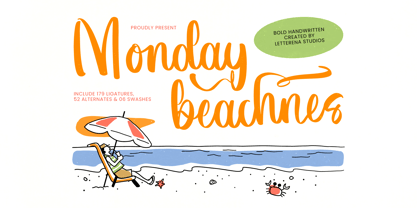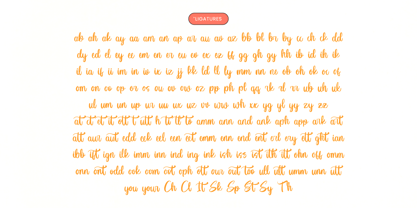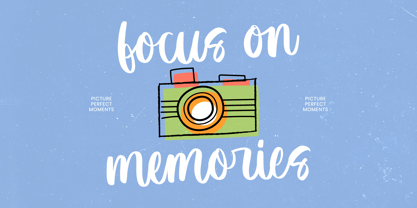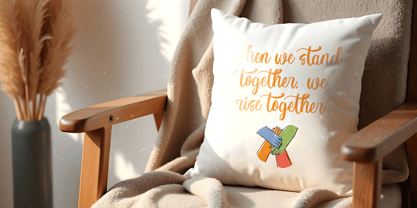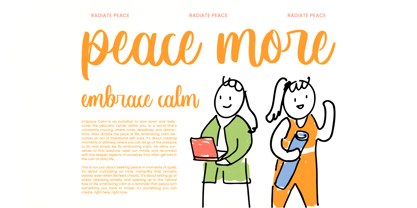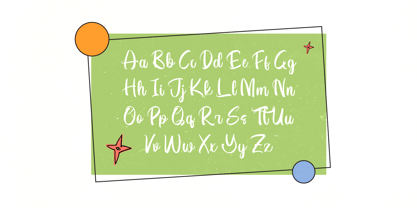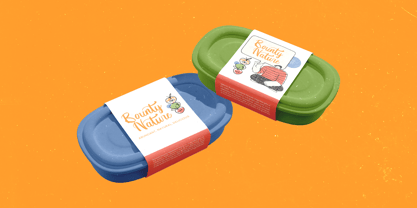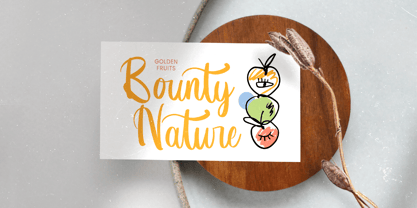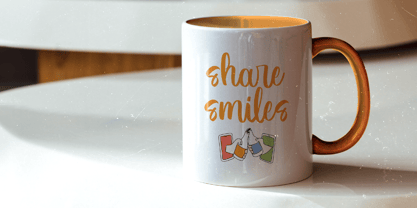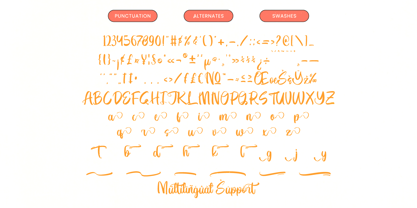
Monday Beachnes
von Letterena Studios
Die Schriftfamilie Monday Beachnes wurde von Heru Utama Putra entworfen und von Letterena Studios veröffentlicht. Monday Beachnes enthält 2 Stile und Familienpaketoptionen. Mehr über diese Familie
Monday Beachnes is a bold handwritten script inspired by carefree seaside moments, bringing a warm, playful, and breezy personality to your designs. Its smooth strokes, natural movement, and sun-kissed charm make it perfect for beach-themed branding, lifestyle merchandise, summer event posters, social media graphics, greeting cards, travel blogs, and creative packaging. Featuring 179 ligatures, 52 alternates, and 6 swashes, this typeface gives you expressive customization options that elevate your lettering with effortless energy and handcrafted authenticity. A joyful, sunny script that adds a relaxing coastal vibe to any creative project.
Designer: Heru Utama Putra
Foundry: Letterena Studios